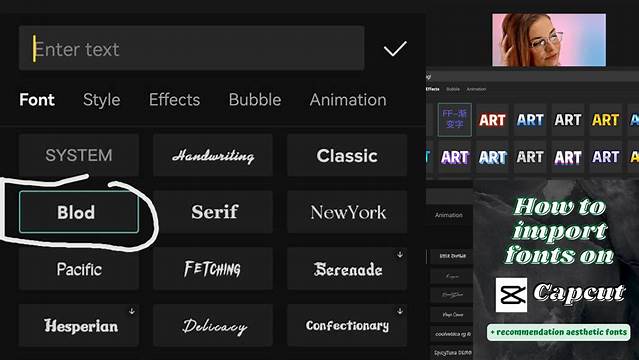
CapCut Fonts: Your Ultimate Guide To Text Styles & Customization
Hey guys! Ever wondered how to level up your CapCut videos with some killer text? Well, you're in the right place. We're diving deep into the world of CapCut fonts, exploring everything from the basics to some seriously cool customization tricks. Get ready to transform your videos from basic to banging with the perfect text styles!
Understanding CapCut Fonts: The Foundation of Your Text Design
So, first things first: what exactly are we talking about when we say CapCut fonts? Simply put, they're the different styles of text you can use within the CapCut video editing app. Think of them as the building blocks of your text overlays. Each font has its own unique personality, from sleek and modern to quirky and playful. Choosing the right font is crucial because it sets the tone for your entire video and grabs your audience's attention. But how do you start working with CapCut fonts? When you add text to your video, CapCut offers a variety of pre-installed fonts. These are great starting points, covering many popular styles and themes. However, the real fun begins with customization. You can change the font size, color, and even add effects like shadows and outlines to make your text pop. The initial selection provided by CapCut is already quite extensive. It has a great selection, especially if you're looking for a quick and easy way to add text. But let's face it, sometimes you want something extra special, something that really captures the essence of your video. Whether it is for a simple TikTok video or a more complex project, the built-in options are sufficient to cater to basic needs. These built-in options are user-friendly and a good point to start. Using these CapCut fonts help you get the fundamentals of video editing. It allows for easy experimentation. For beginners, this is a solid foundation to build on. These features ensure users are able to express themselves in videos in a better way. The text customization features are the next layer to play with. Remember, the right font can make a huge difference in conveying your message, grabbing attention, and leaving a lasting impression on your viewers. So, take some time to explore the pre-installed CapCut fonts and find the ones that best fit your video's style and purpose.
Exploring the Variety: Built-In Fonts in CapCut
One of the best things about CapCut is its user-friendly interface, especially when it comes to the CapCut fonts. Navigating through the available font options is a breeze. You'll find a wide range of choices, from classic serifs like Times New Roman to modern sans-serifs like Open Sans. Each font has its own character, and it's essential to understand how each of them can convey your message effectively. For example, a bold and playful font might be perfect for a fun vlog, while a clean, minimalist font could be ideal for a professional tutorial. CapCut's built-in fonts are strategically categorized to help you find what you need quickly. This means you don't have to scroll endlessly to find the right style. Instead, you can easily browse through categories like 'Basic', 'Handwritten', or 'Decorative'. This categorization makes it easier to narrow down your choices and find the perfect CapCut fonts for your project. When you select a font, you can see a preview of how your text will look. This is a game-changer, as it allows you to visualize the final result before committing to it. You can also experiment with different font sizes, colors, and styles to see what works best. This preview feature is a simple but effective way to save time and ensure your text looks exactly how you want it. With this easy accessibility, you can focus more on the content and less on the technicalities. Experimentation is key in video editing. The vast choices of CapCut fonts allow you to explore different aesthetics without limitations. The more you play around, the better you'll understand how each font affects your message. Don't be afraid to step outside your comfort zone and try new things. It's through experimentation that you'll discover unique combinations that make your videos stand out.
Customizing Your Text: Color, Size, and Effects
Now that you've chosen your CapCut fonts, let's dive into how to make them really shine! Customization is where the magic happens. CapCut provides a wealth of tools to adjust your text, ensuring it perfectly complements your video. First up: color. CapCut offers a color palette with countless options. You can select from predefined colors or get creative with the color picker. This allows you to match your text to your video's overall aesthetic, whether that's vibrant, muted, or anything in between. The size adjustment is another critical feature. You can easily scale your text up or down to fit your needs. This ensures your text is readable on any screen size, whether it's a phone, tablet, or computer. Correct size and colors are critical to making your CapCut fonts legible and attention-grabbing. Now, let's add some flair with effects. CapCut offers several effects, like shadows, outlines, and glows. These effects add depth and visual interest to your text. Shadows make your text pop off the screen. Outlines provide a clear border, especially against busy backgrounds. Glows create a soft, eye-catching halo around your text. Experiment with these effects to see how they enhance your message. You can further personalize your text by adjusting the spacing between letters (kerning) and lines (leading). These adjustments fine-tune the appearance of your text, making it visually appealing. Kerning can tighten or loosen the spacing between individual letters, while leading controls the space between lines of text. Mastering these tools transforms your text from basic to breathtaking. With color, size, and effects, you can create dynamic and visually appealing text overlays. Take the time to explore each feature. The goal is to create text that supports and enhances your video content. Customization is not just about making things look pretty; it's about communicating your message clearly and effectively. Use these tools to guide your viewers' eyes and make your videos unforgettable.
Best Practices for Using Fonts in CapCut
Now that you're equipped with font knowledge, let's talk about the best ways to use them. Let's talk about some awesome practices to help you make your videos look even better. Consistency is key. Stick to a few CapCut fonts throughout your video to create a cohesive look. Mixing too many fonts can make your video look cluttered and unprofessional. Choose fonts that reflect your content and target audience. Consider the personality of the font and how it fits your video's theme. A playful font might work for a comedy video, while a more serious font suits an educational video. Make sure your text is easy to read. Use a font size that's large enough to see on all devices. Good contrast between the text and the background is essential. Black text on a white background, or white text on a dark background, usually works best. Limit the amount of text on the screen at any one time. Overcrowding your video with text can overwhelm viewers. Keep it concise and to the point. Consider where you're placing your text on the screen. Avoid blocking important parts of your video. Use text overlays to guide your viewers' eyes. Experiment with different font styles to see what works best. Pay attention to kerning (the spacing between letters) and leading (the spacing between lines). Proper spacing enhances readability. Optimize your video by following these best practices, and your text will become more engaging and appealing. With thoughtful font choices and smart design, you'll elevate your videos and captivate your audience.
Font Pairing: Creating Harmonious Text Combinations
Font pairing is a crucial skill for creating visually appealing videos. Pairing the wrong CapCut fonts can make your video look messy. Combining the right fonts can elevate your entire video. Here are some tips for creating harmonious text combinations. When choosing fonts, start with a primary font for headlines and titles. Then, select a secondary font for body text and supporting information. It's great to use a serif font (like Times New Roman) for your headlines and a sans-serif font (like Arial) for body text. The key is to select fonts that complement each other. Avoid pairing fonts that are too similar, as this can make your text look confusing. Contrasting fonts can create visual interest. Using fonts with different weights can be visually appealing. You can also pair fonts from the same font family. This creates a sense of unity. It's wise to consider the purpose of your text. Choose fonts that match your video's overall tone. The video's message is important to be reflected with the font. When using multiple fonts, it's wise to be consistent with your font choices. Use your font pairings throughout your video to create a professional look. Limit the number of font combinations to one or two. Keep it simple. Test out font pairings before committing to them. Preview your video to ensure your text is readable and visually appealing. By mastering font pairing, you can create videos that look polished and professional.
Ensuring Readability: Font Size, Color, and Placement
Readability is king when it comes to CapCut fonts. If your text is hard to read, your message won't get across. Ensuring readability is essential for any successful video. Here's how to make your text as clear as possible. First up: font size. Choose a font size that is easily visible on all devices. Consider the screen size of the devices. A larger font size is crucial for mobile devices. A good rule of thumb is to test your video on different screens to ensure readability. Next, the color. Use contrasting colors for your text and background. Light text on a dark background, or dark text on a light background, usually works best. Ensure there's enough contrast between your text and the background. Also, the placement of your text is important. Avoid placing your text over busy backgrounds. Your text should stand out and be easily seen. Consider the video's content and the overall composition. Experiment with different text positions. Ensure that your text doesn't block important video elements. Proper placement can significantly increase your video's impact. Ensure your message is getting across. Testing on different screens and devices is vital to readability. Adjust your font size, color, and placement as needed. The aim is to make your text easy to read, regardless of the device or environment. With these tips, you can create videos that are informative and visually appealing.
Conclusion: Unleash Your Creativity with CapCut Fonts
Alright, guys, we've covered a lot of ground today! From the basics of CapCut fonts to the nitty-gritty of custom imports, you're now well-equipped to take your video editing skills to the next level. Remember, choosing the right font is about more than just aesthetics. It's about conveying your message, setting the tone, and capturing your audience's attention. So, get out there, experiment with different fonts, and have fun! Don't be afraid to try new things and push your creative boundaries. The more you play around, the better you'll become at creating videos that stand out. We hope this guide has inspired you to explore the wonderful world of CapCut fonts. With a little bit of practice and a dash of creativity, you'll be able to create stunning videos that leave a lasting impression. Happy editing, and we can't wait to see what you create!